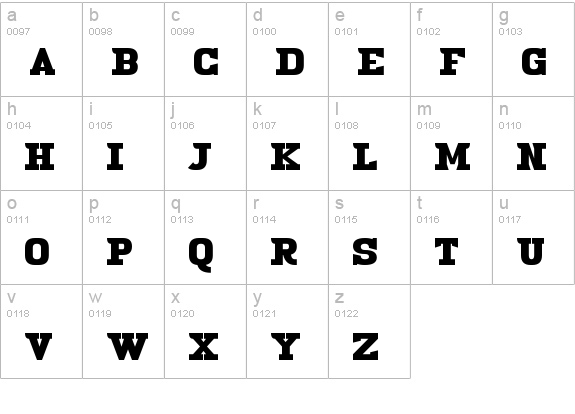
The 19th Century Renegade font exudes a rebellious spirit and a sense of adventure, capturing the essence of the 19th-century renegades who defied conventions and blazed their own trails. With its bold strokes and vintage aesthetic, this font brings a touch of old-world charm to any design project. Embodying the spirit of independence and individuality, 19th Century Renegade is a versatile font that can be used for a wide range of creative endeavors, from branding to packaging to editorial design. Its timeless appeal and unique character make it a standout choice for those seeking to make a statement with their typography. What's more, 19th Century Renegade is freely available to download at FontsMarket.com, allowing designers and creatives to access this captivating font with ease. Don't miss the opportunity to add a touch of renegade flair to your next project with the 19th Century Renegade font.